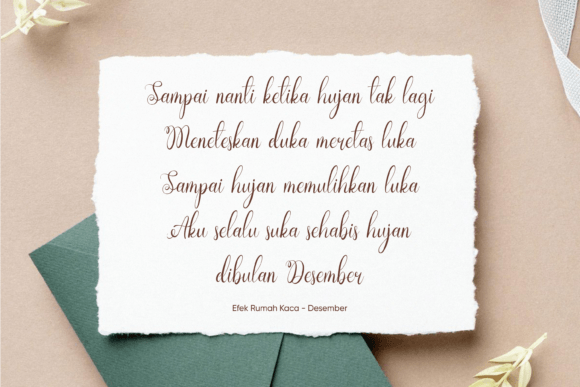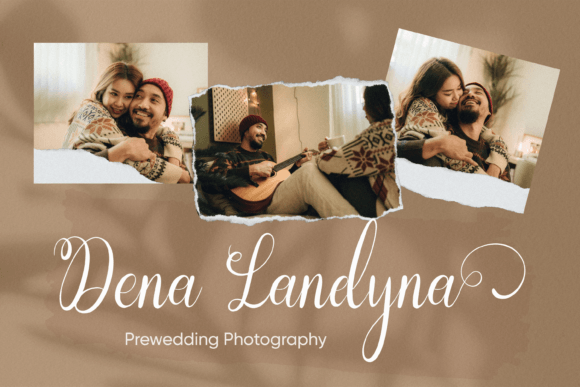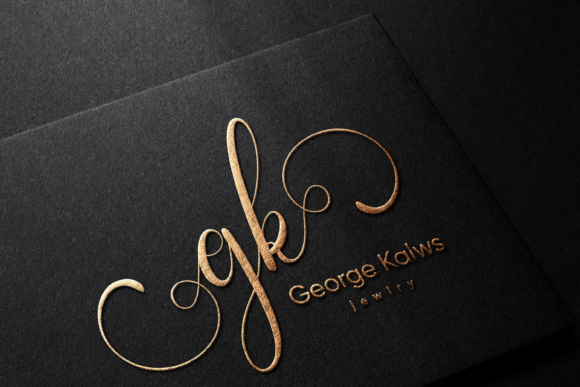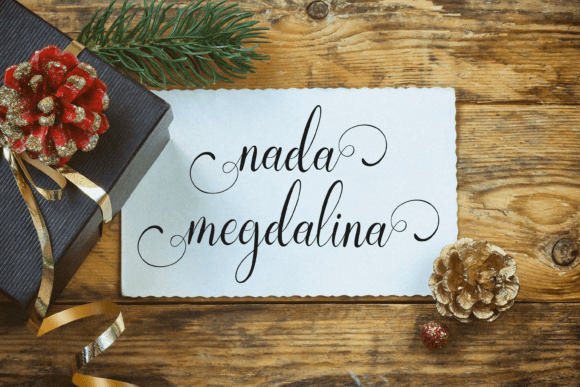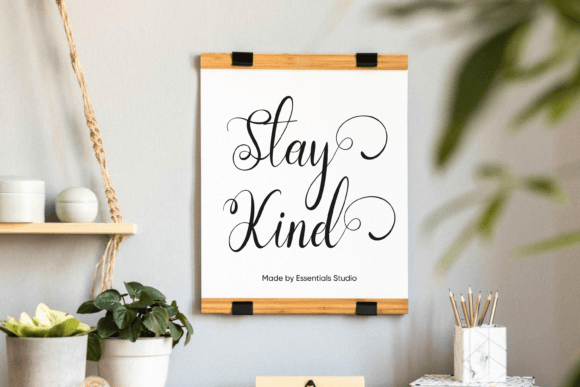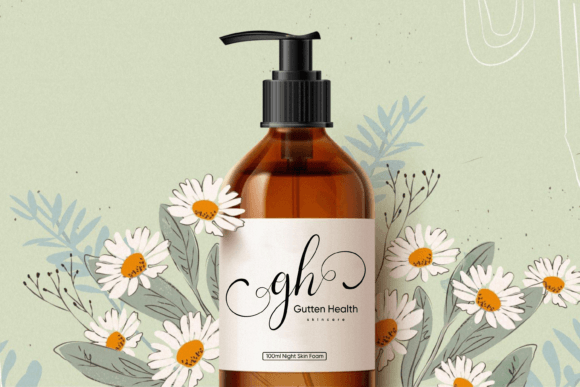
Introduction to Olynchan Font
As you sit in front of your computer, staring blankly at a blank canvas, waiting for inspiration to strike – it’s that moment when you need a little something extra to take your design to the next level. Whether you’re working on a product packaging project, a branding campaign, or a simple social media post, having the right font can make all the difference.
That’s where Olynchan Font comes in – a beautiful, flowing handwritten font that adds an elegant touch to any design. With its distinct and timeless style, Olynchan Font is the perfect design resource for any creative project. From free downloads to high-quality designs, this font is sure to elevate your work and make it stand out from the crowd.
Key Features of Olynchan Font
- Unique Hand-Drawn Style: Olynchan Font features a distinctive, hand-drawn aesthetic that adds a touch of creativity to any design project.
- High-Quality Design Resource: This font is designed to meet the needs of graphic designers, artists, and anyone looking for a high-quality design resource.
- Perfect for Creative Projects: Olynchan Font is ideal for designers working on creative projects, such as logos, branding materials, and advertising campaigns, where a unique and eye-catching font is essential.
Honest Review: Olynchan Font
As a designer, I’m always on the lookout for high-quality design resources to enhance my creative projects. Recently, I had the opportunity to work with the Olynchan Font, and I’m excited to share my honest review.
What works well: ✨ The Olynchan Font offers a beautiful, elegant design that’s perfect for a variety of creative projects. The font is highly versatile and can be used for both digital and print applications. I particularly appreciate the fact that the font is available for free download, making it an excellent resource for designers on a budget.
- Excellent for digital and print applications
However, there are a few limitations to consider: ⚠️ The Olynchan Font may not be the best choice for projects that require a bold, attention-grabbing font. Additionally, some users may find the font’s elegance to be a bit too understated.
Overall, I’m impressed with the Olynchan Font. While it may not be perfect for every project, it’s a great addition to any designer’s toolkit. With its high-quality design and free download, it’s definitely worth considering for your next creative project.
Tips for Getting the Most Out of the Olynchan Font
To get the most out of the Olynchan Font, experiment with different font sizes, colors, and combinations to create visually appealing designs. You can also pair it with other fonts to create a unique design style.
The Olynchan Font is ideal for various creative projects, including logos, social media graphics, posters, infographics, and business documents. Its high-quality design makes it perfect for professional presentations, reports, and business cards.